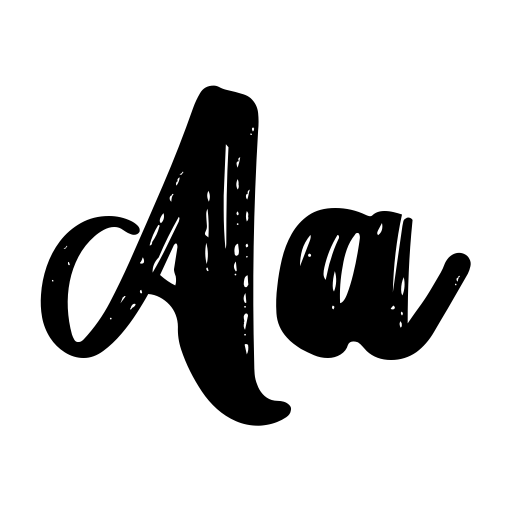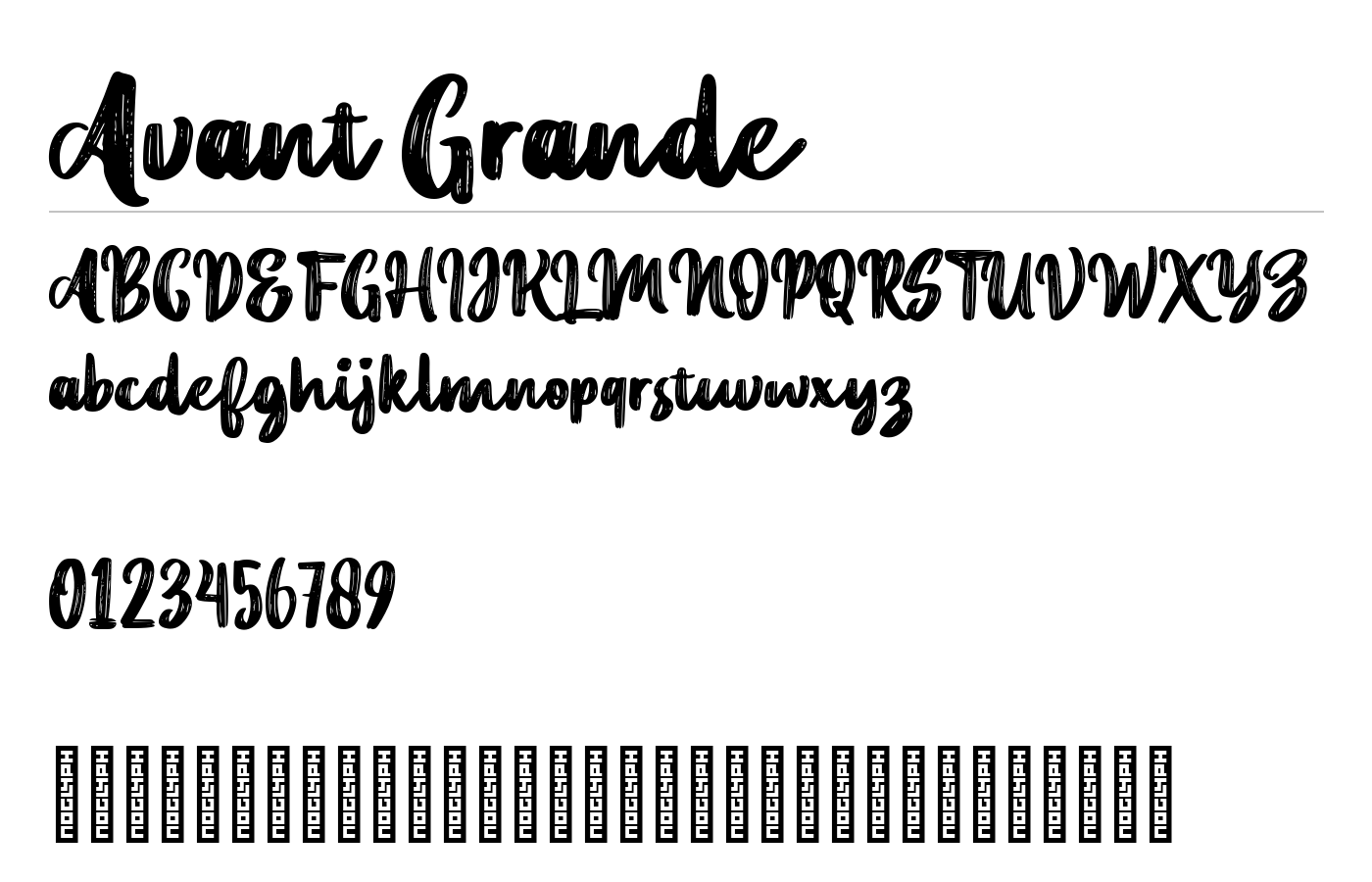
Avant Grande is a bold, playful script font characterized by its thick, textured brush strokes and lively, hand-drawn feel. Its high x-height and rounded, flowing letterforms make it perfect for creative, casual branding and eye-catching headlines that demand attention and express personality. This font works beautifully for logos, posters, and packaging where a spirited, approachable look is needed.
Avant Grande Font
About Avant Grande Font
| Font family | Avant Grande Font |
| Designer | Amir Subqi Setiaji |